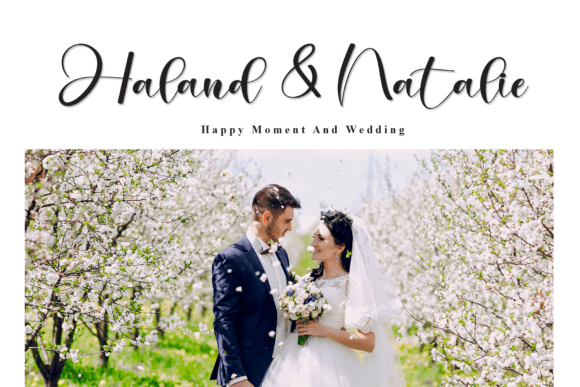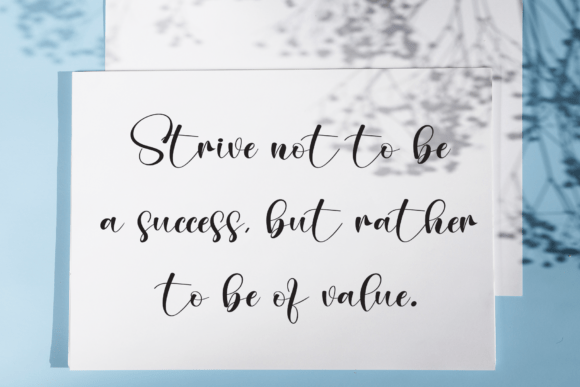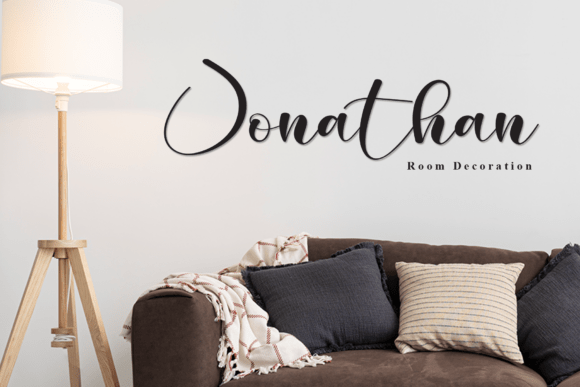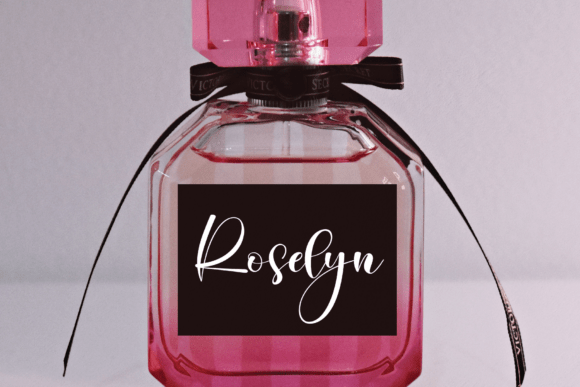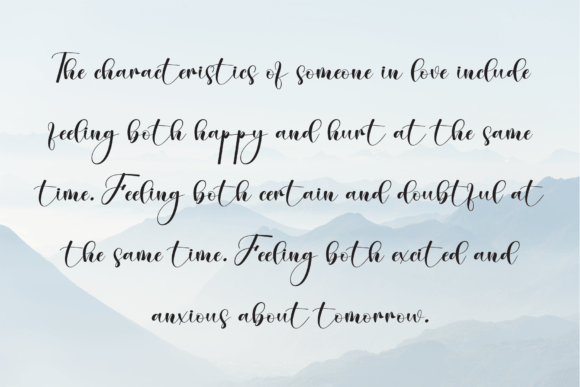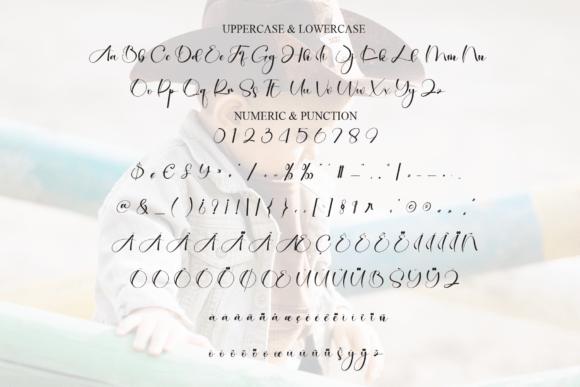
Babycowboy Font: A Western Charm with a Modern Twist
Saddle up for a style that is as sweet as it is rugged. The Babycowboy font is a modern handwritten font that brings a fresh spin to traditional western typography. With its long, sweeping descenders and elegant, rhythmic flow, this font is perfect for designers and crafters looking to add a touch of boutique western charm to their work.
The Inspiration Behind Babycowboy Font
The Babycowboy font is inspired by the adventurous spirit of the American frontier, but with a refined and professional twist. It’s a font that combines the ruggedness of the wild west with a touch of elegance and sophistication. The result is a unique and eye-catching style that’s perfect for a variety of design projects.
Key Features of Babycowboy Font
- Modern Handwritten Style: The Babycowboy font features a modern handwritten style with a flowing, cursive script.
- Long, Sweeping Descenders: The font’s long, sweeping descenders add a touch of elegance and sophistication to your designs.
- Elegant, Rhythmic Flow: The font’s elegant, rhythmic flow makes it perfect for creating beautiful, flowing text.
- Boutique Western Aesthetic: The Babycowboy font brings a boutique western aesthetic to your work, blending the adventurous spirit of the frontier with a refined, professional signature style.
Best Uses for Babycowboy Font
The Babycowboy font is perfect for a variety of design projects, including:
- Baby Shower Invitations: The font’s sweet and rugged style makes it perfect for baby shower invitations and other baby-themed designs.
- Western-Themed Branding: The font’s western charm and modern twist make it perfect for western-themed branding and advertising.
- Nursery Wall Art: The font’s elegant, flowing style makes it perfect for creating beautiful nursery wall art.
- Country-Chic Photography Watermarks: The font’s rustic, yet refined style makes it perfect for country-chic photography watermarks.
Why Choose Babycowboy Font?
There are many reasons why designers and crafters choose the Babycowboy font for their projects. Here are a few:
- Unique Style: The Babycowboy font offers a unique and eye-catching style that’s sure to set your designs apart.
- Versatility: The font’s versatility makes it perfect for a wide range of design projects, from baby shower invitations to western-themed branding.
- Elegant, Refined Style: The font’s elegant, refined style makes it perfect for designers and crafters who want to add a touch of sophistication to their work.
Tips for Using Babycowboy Font
Here are a few tips for using the Babycowboy font in your designs:
- Use it as a Headline Font: The Babycowboy font is perfect for use as a headline font, where its elegant, flowing style can really shine.
- Pair it with a Simple Font: For body text, pair the Babycowboy font with a simple, easy-to-read font to create a beautiful contrast.
- Experiment with Colors: The Babycowboy font looks great in a variety of colors, from bold and bright to soft and pastel.
The Babycowboy font is a unique and eye-catching font that’s perfect for designers and crafters looking to add a touch of western charm to their work. With its modern handwritten style, long sweeping descenders, and elegant, rhythmic flow, this font is sure to set your designs apart. Whether you’re creating baby shower invitations, western-themed branding, or nursery wall art, the Babycowboy font is a great choice.